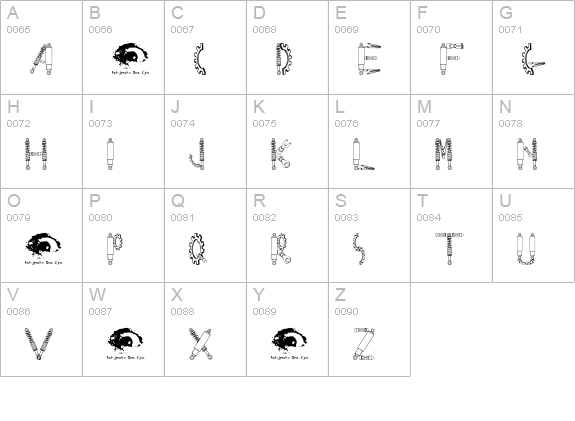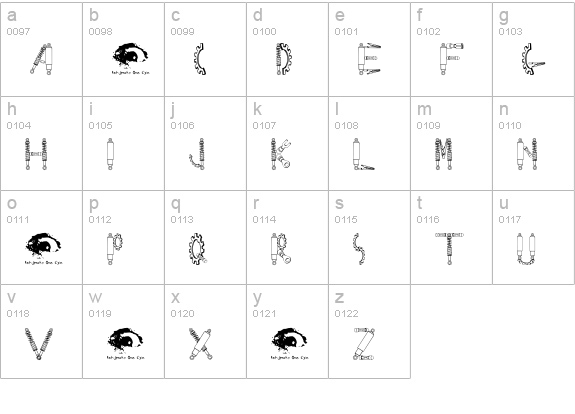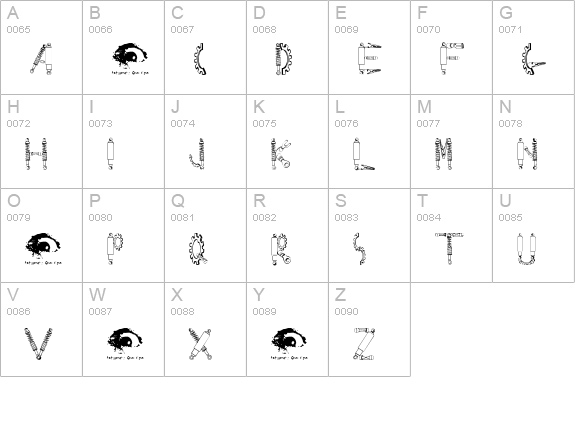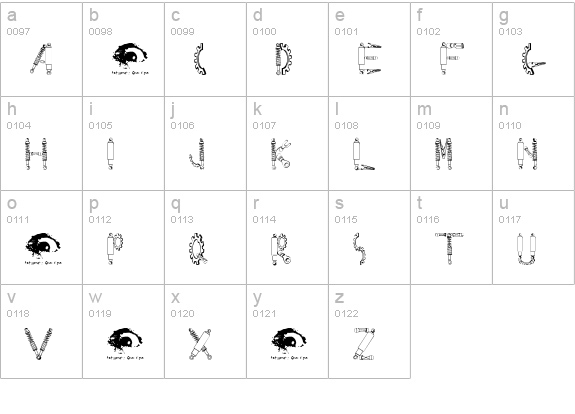
Rusted MachineSW Font Details
Rusted MachineSW font is a captivating display typeface that exudes a raw and industrial aesthetic. Its weathered appearance and mechanical-inspired design make it perfect for projects that require a touch of ruggedness and authenticity. The jagged edges and distressed texture of this font give it a unique character that sets it apart from traditional typefaces. Best of all, Rusted MachineSW font is completely free to download at FontsMarket.com. Whether you're working on a poster for a gritty urban event or designing a logo for a cutting-edge tech company, this font will add a touch of edgy sophistication to your designs. Embrace the power of industrial design with Rusted MachineSW font today!